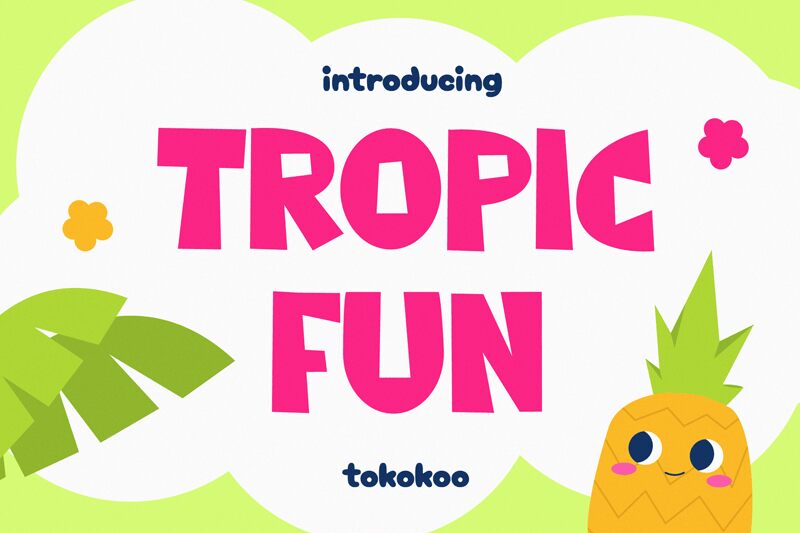
Tropicfun font by Tokokoo Studio is a free cartoon display typeface with big, bouncy shapes that feel cut from thick paper. The letters lean and wobble just enough to feel hand-made, while their chunky weight and snug rhythm keep words readable from a distance. It’s bold, inky, and a little wild-like sun-dried signage from a boardwalk stand.
Using Tropicfun, you’ll nail beach party posters, snack packaging, kids’ event flyers, summer camp merch, YouTube thumbnails, theme park signage, and tropical café menus. The lively spacing gives headlines punch; add a touch of tracking for small labels. Pair this free font with a simple geometric sans for details to let the playful forms do the shouting.